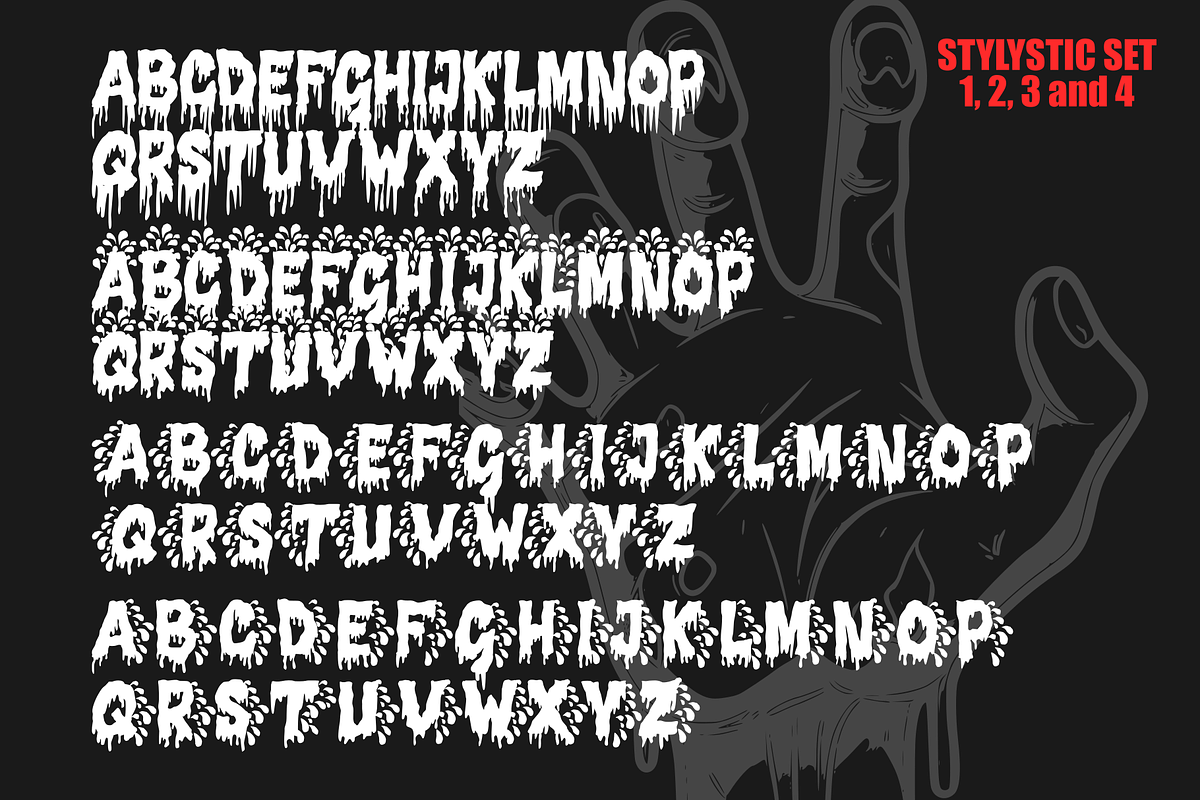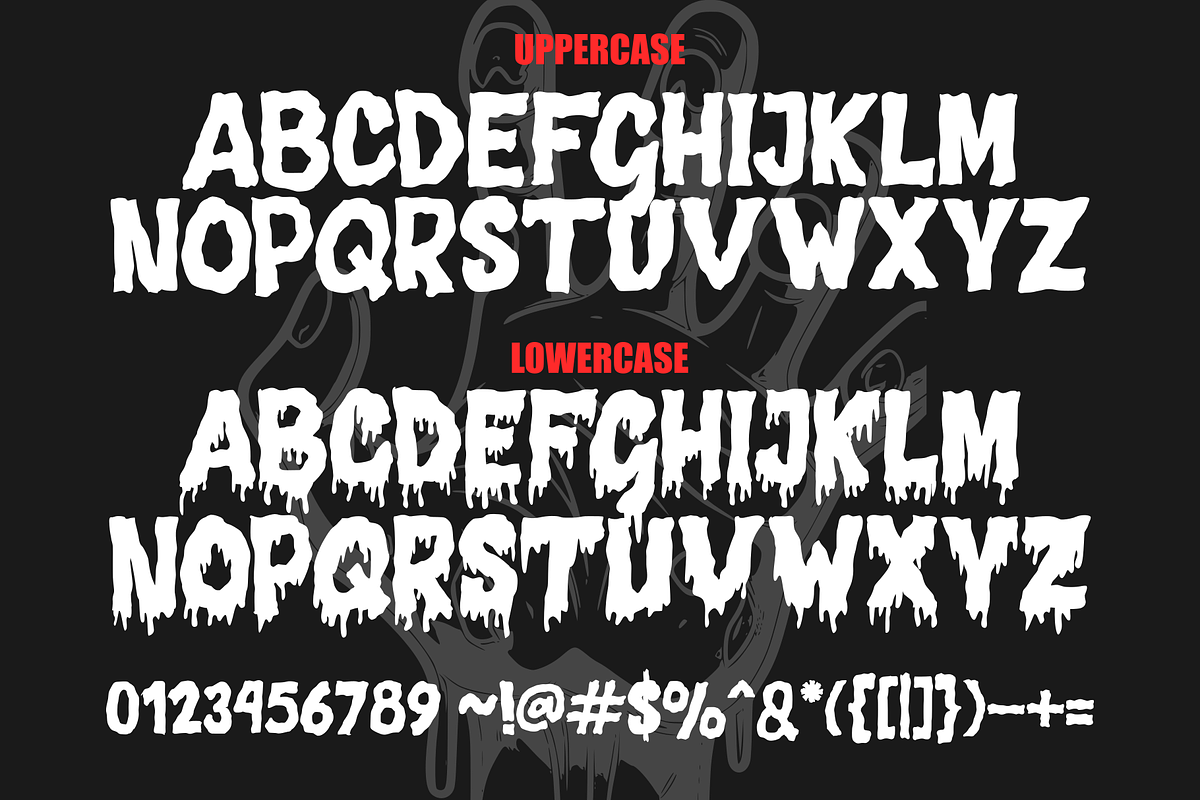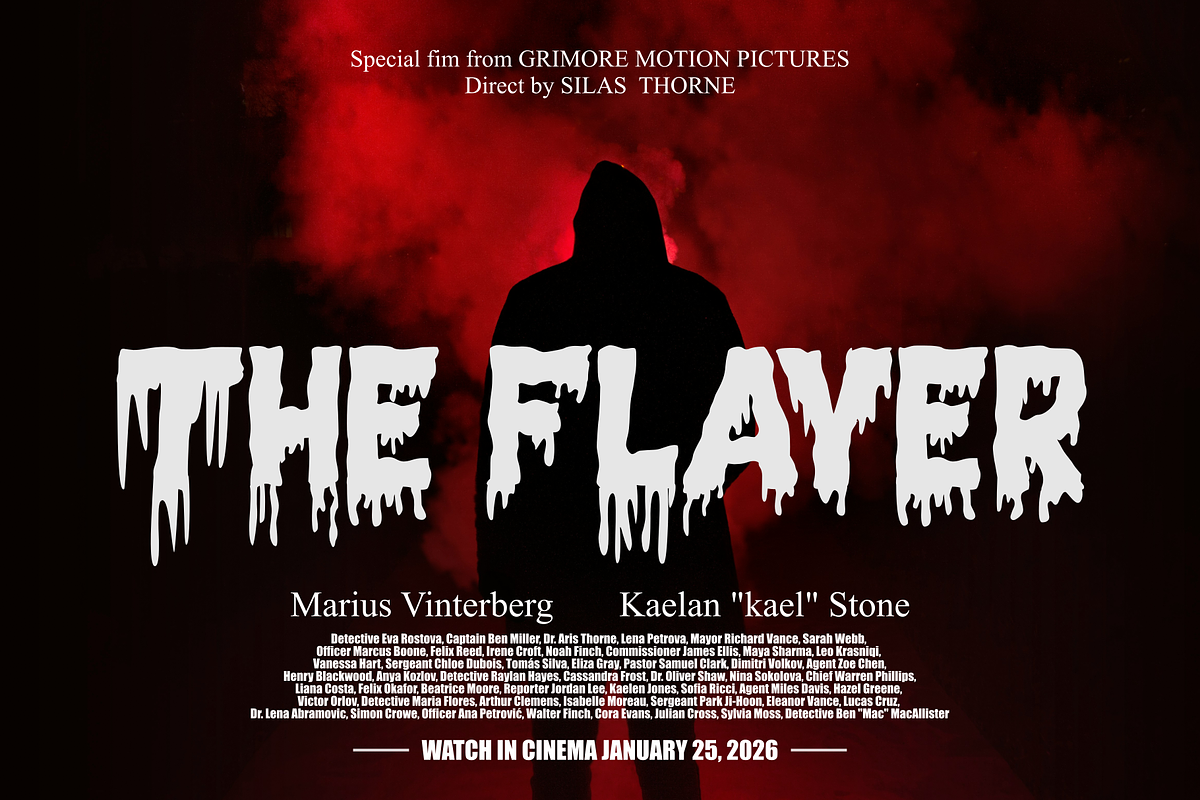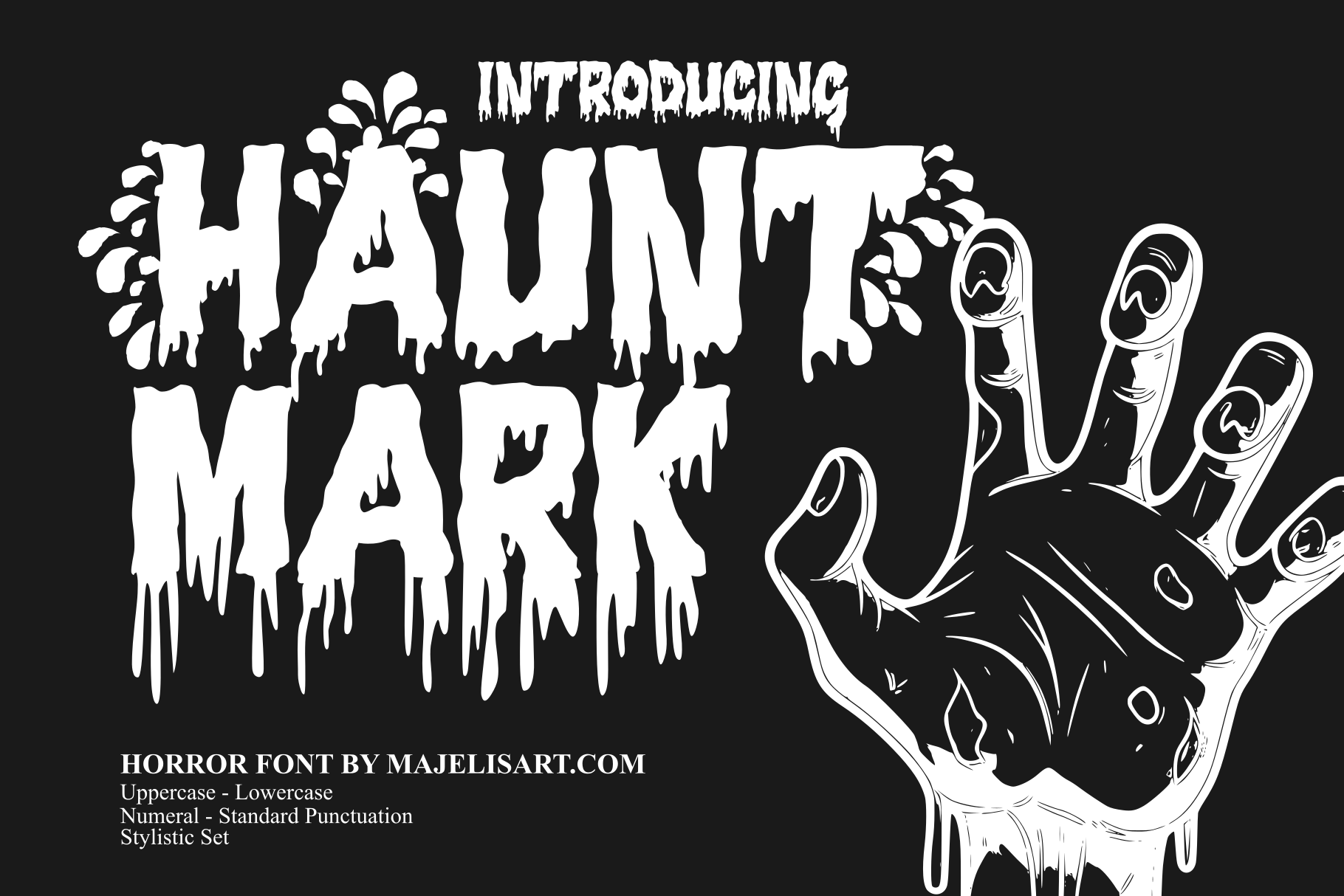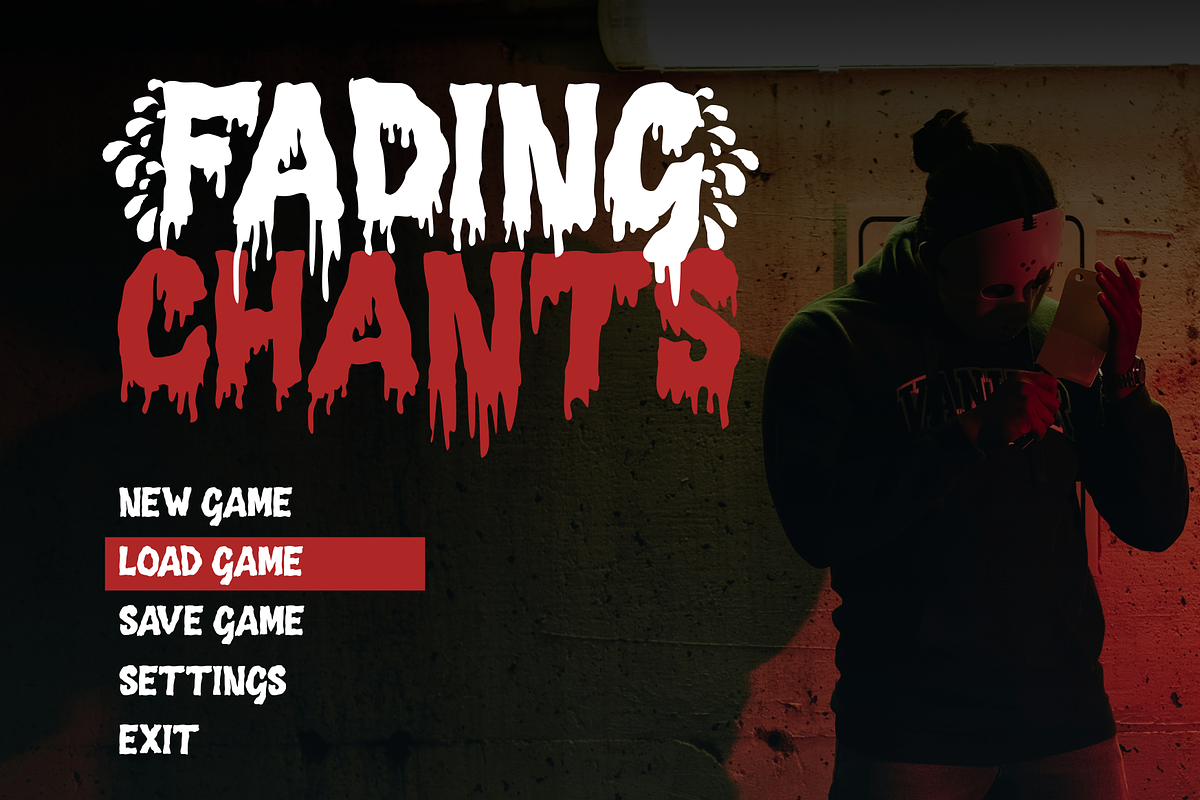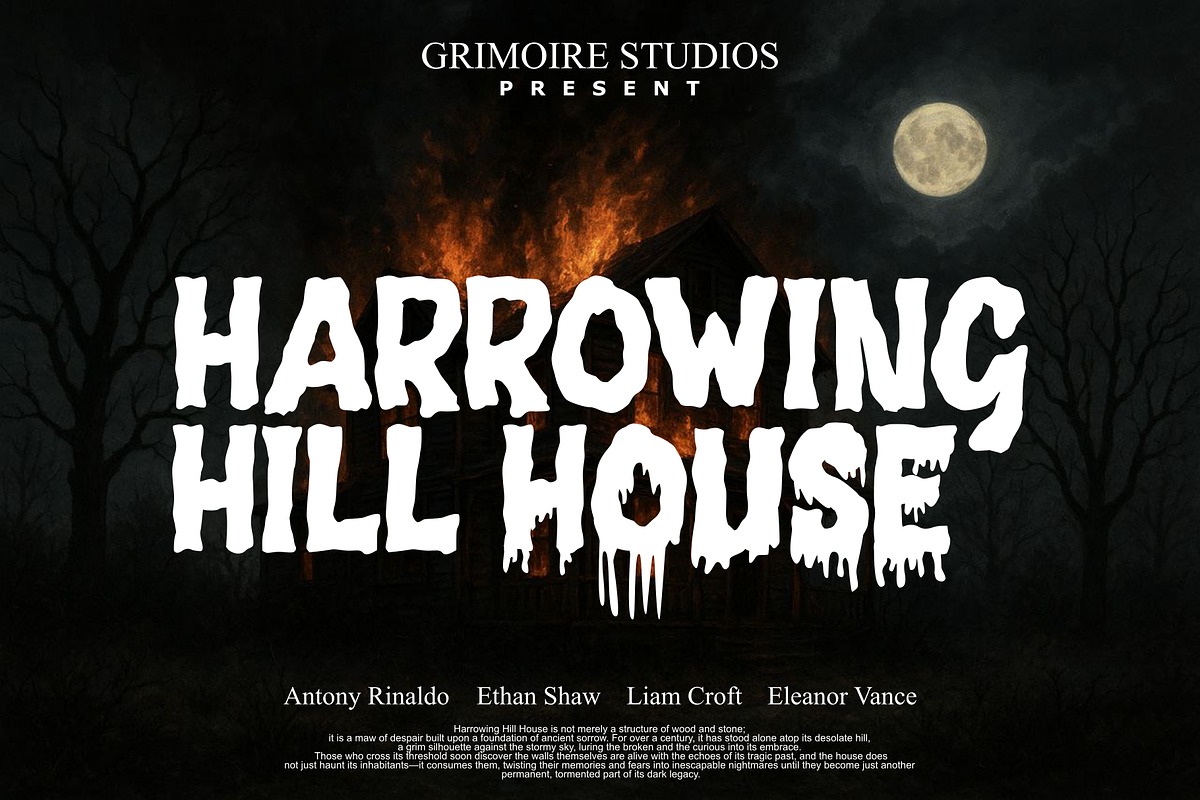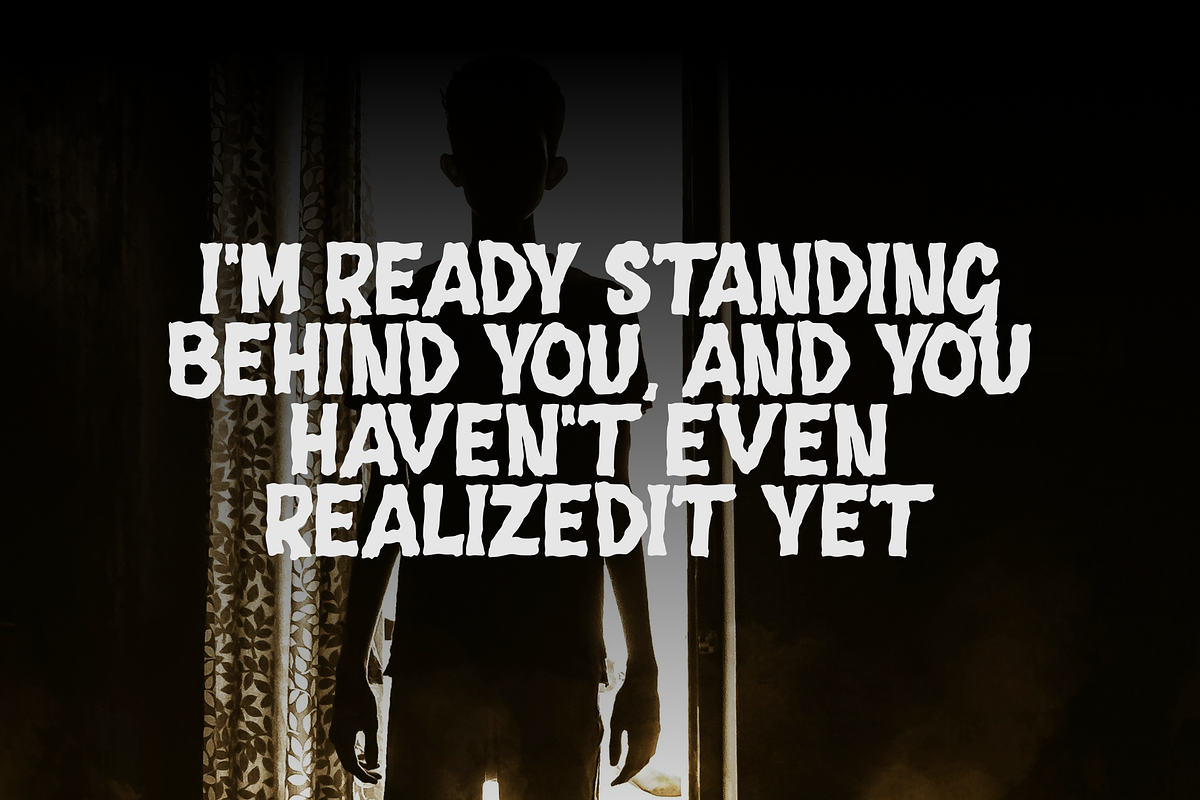
Hauntmark - Horror Font
Haunt Mark – Horror Font
Haunt Mark is a horror-themed font designed to bring a chilling, eerie, and mysterious atmosphere to your projects. Perfectly suited for horror movie posters, thriller book covers, dark comic titles, Halloween designs, merchandise, and any creative work that needs a terrifying touch. This font comes in OTF and TTF formats, making it easy to use across different devices and design software. Inside you’ll find:
- Uppercase & Lowercase Letters
- Standard Punctuation
4 Stylistic Set Options to add unique variations to your work
With letterforms inspired by dripping textures and haunting scratches, Haunt Mark is the perfect choice to complete your spooky design projects.